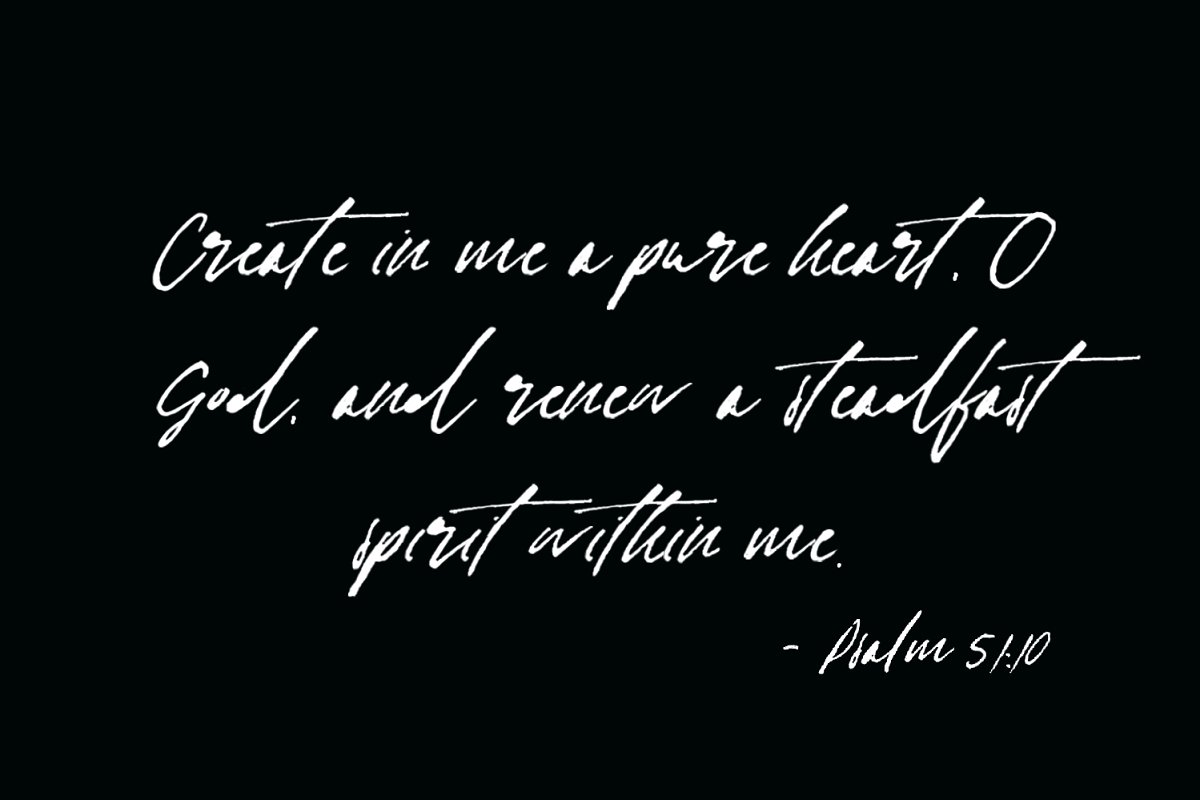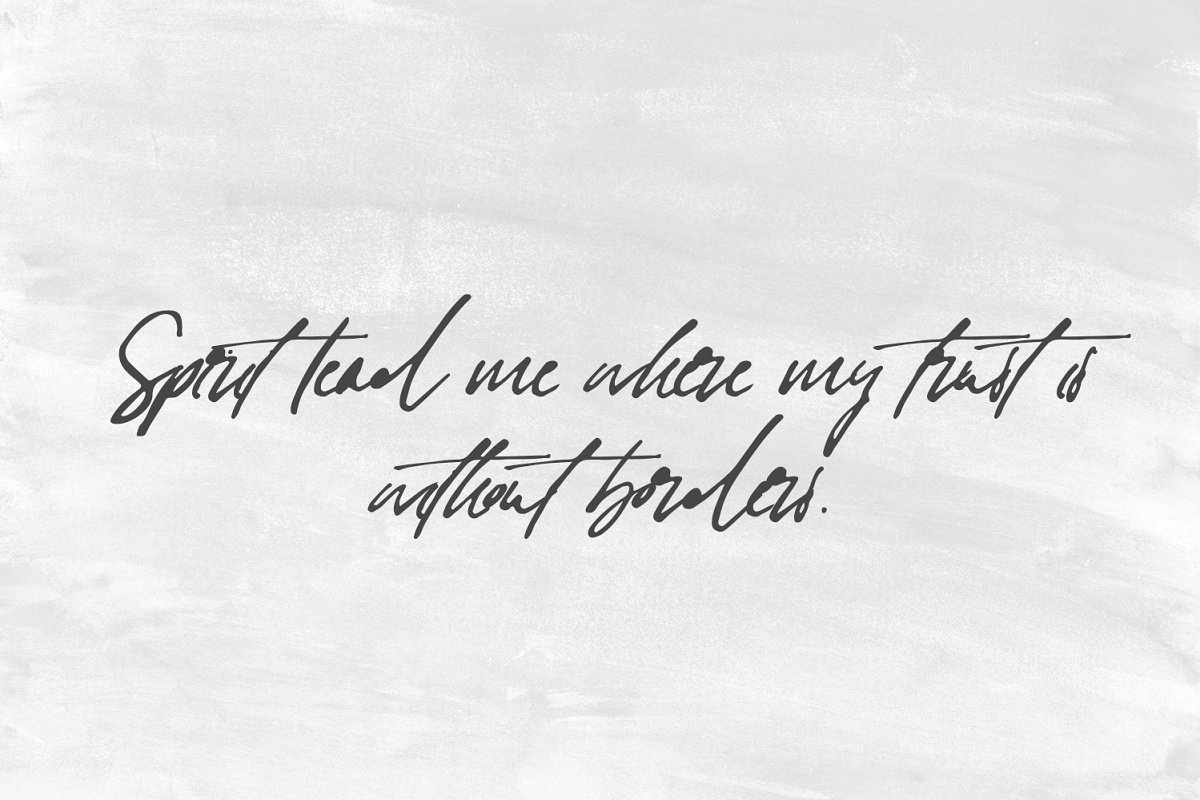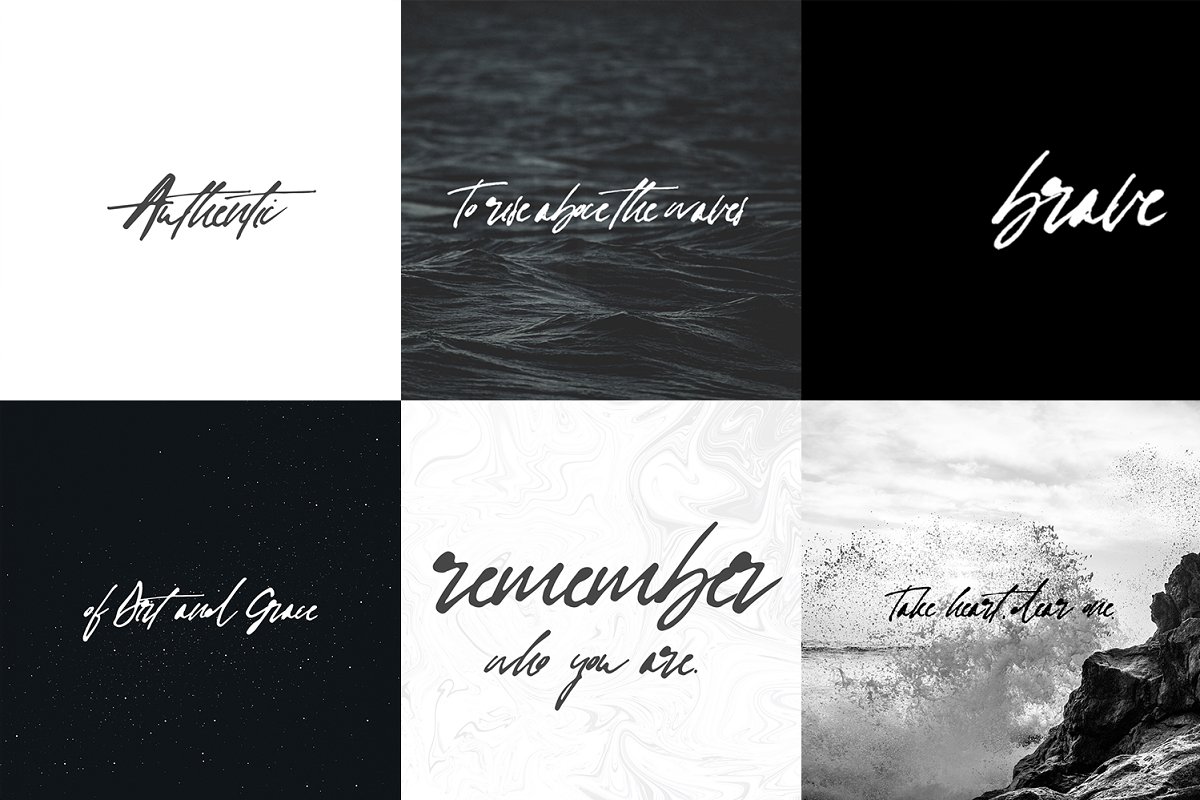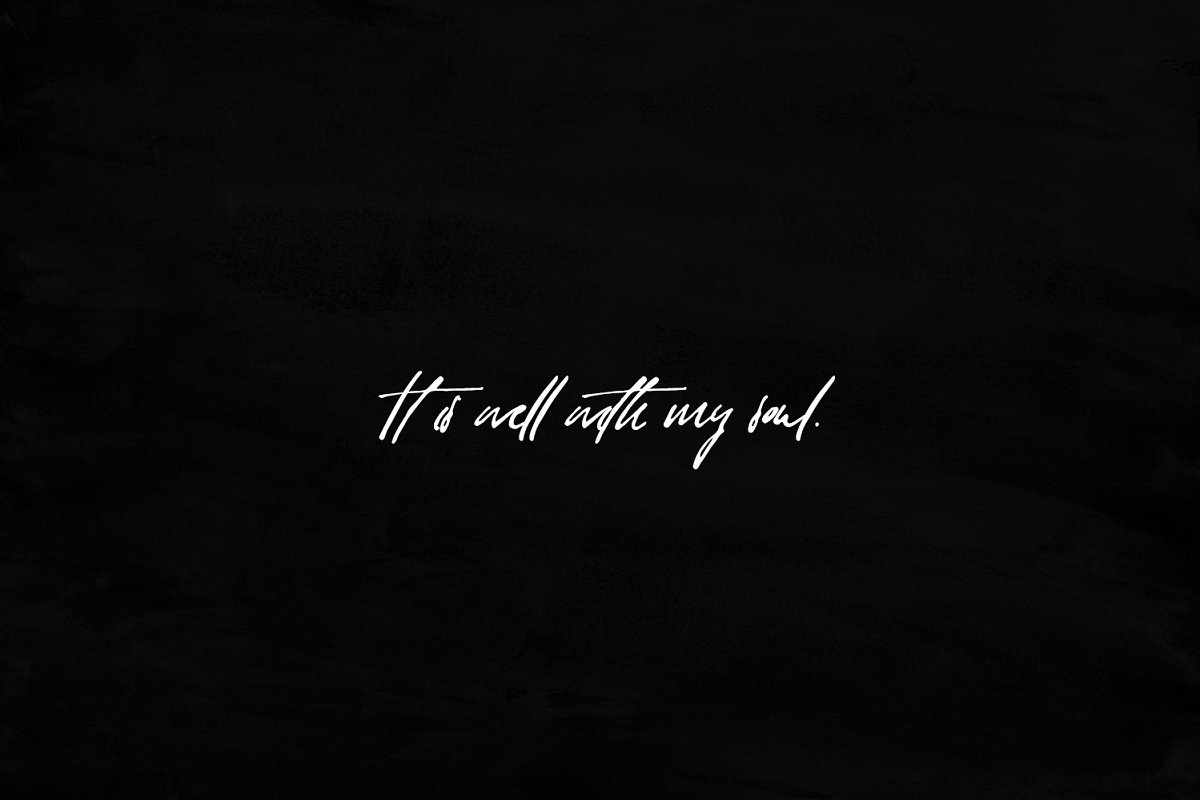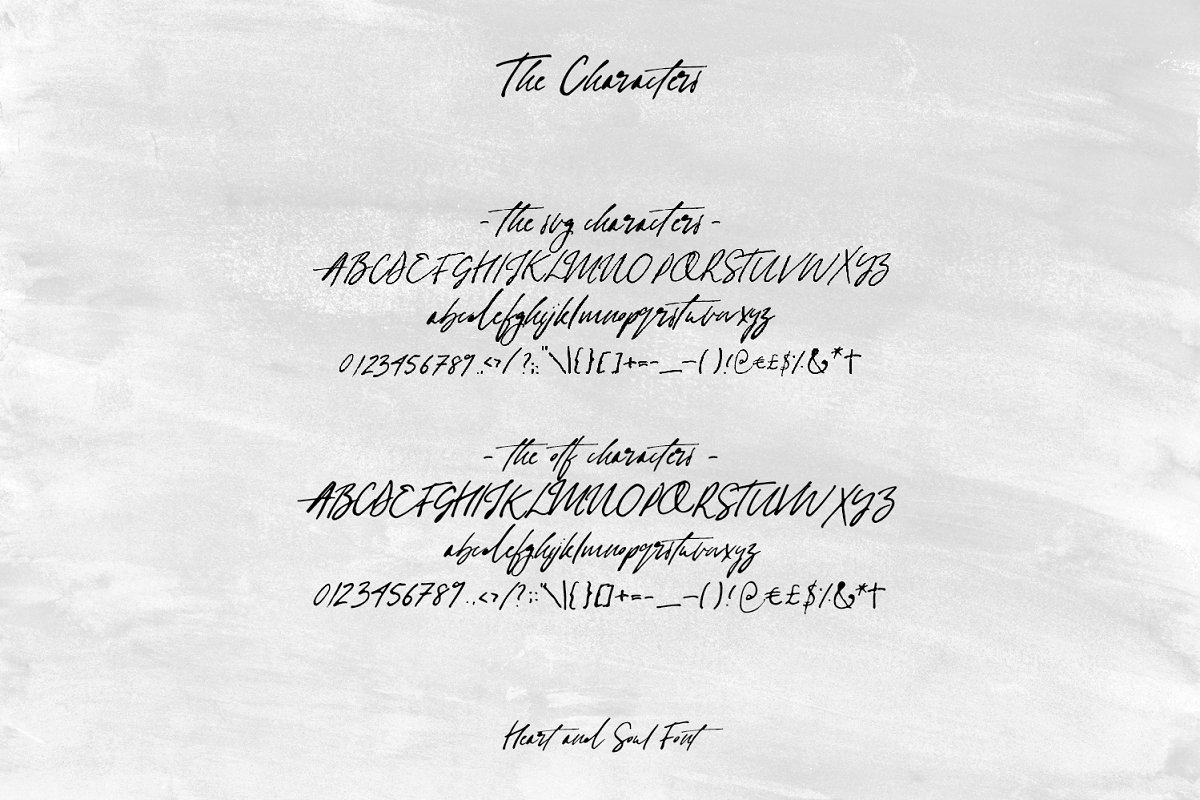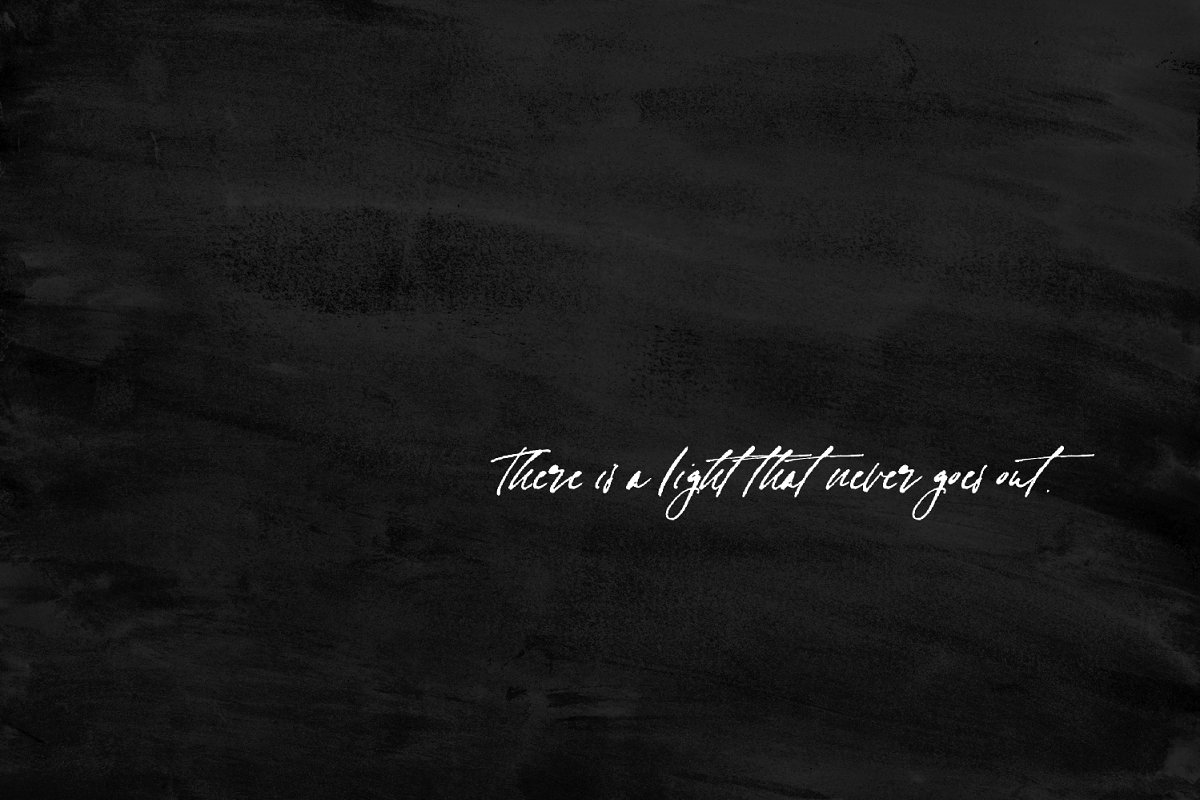
About the Heart Soul Handwritten Font
FRIENDS: I would love to see what you create and support you in any way I can, My instagram is https://www, instagram, com/heartandsoulstudios/ Please DM me to say hi, to collaborate or for a feature, ♥ Ever-rooting for you, – RInspired by the very breath of life and the song of all Creation, Heart and Soul is my first dip-pen-inked, hand-written font